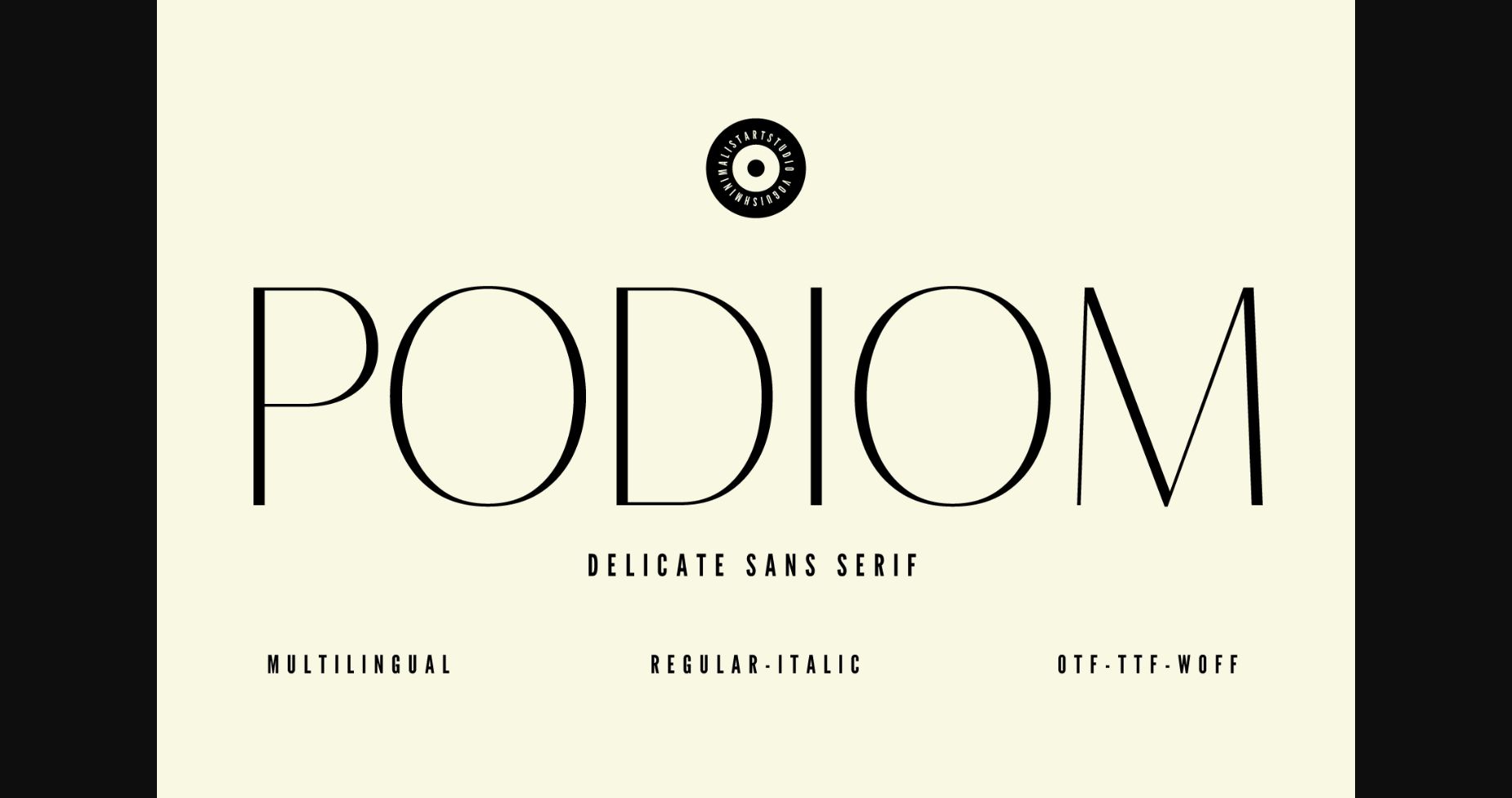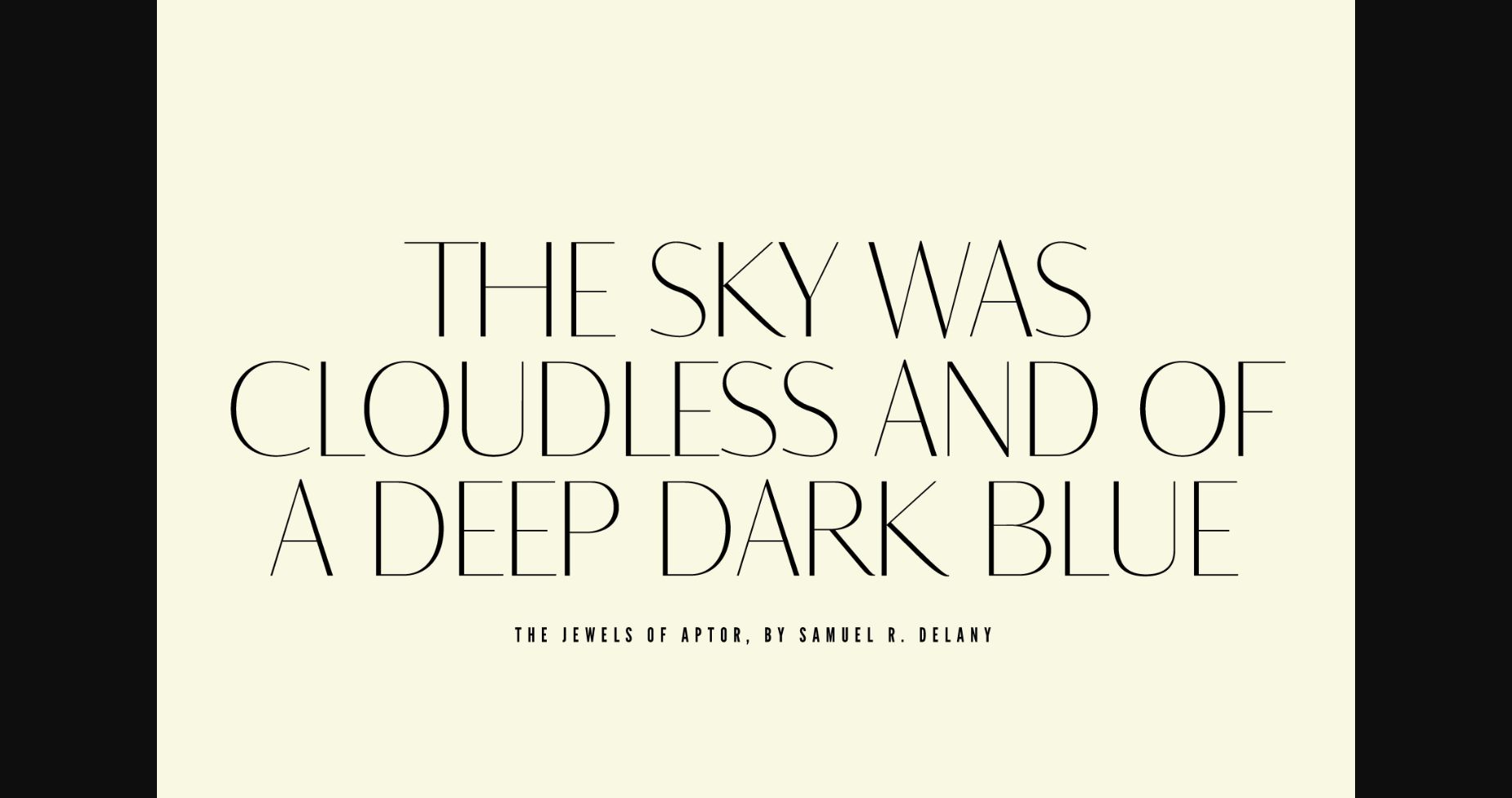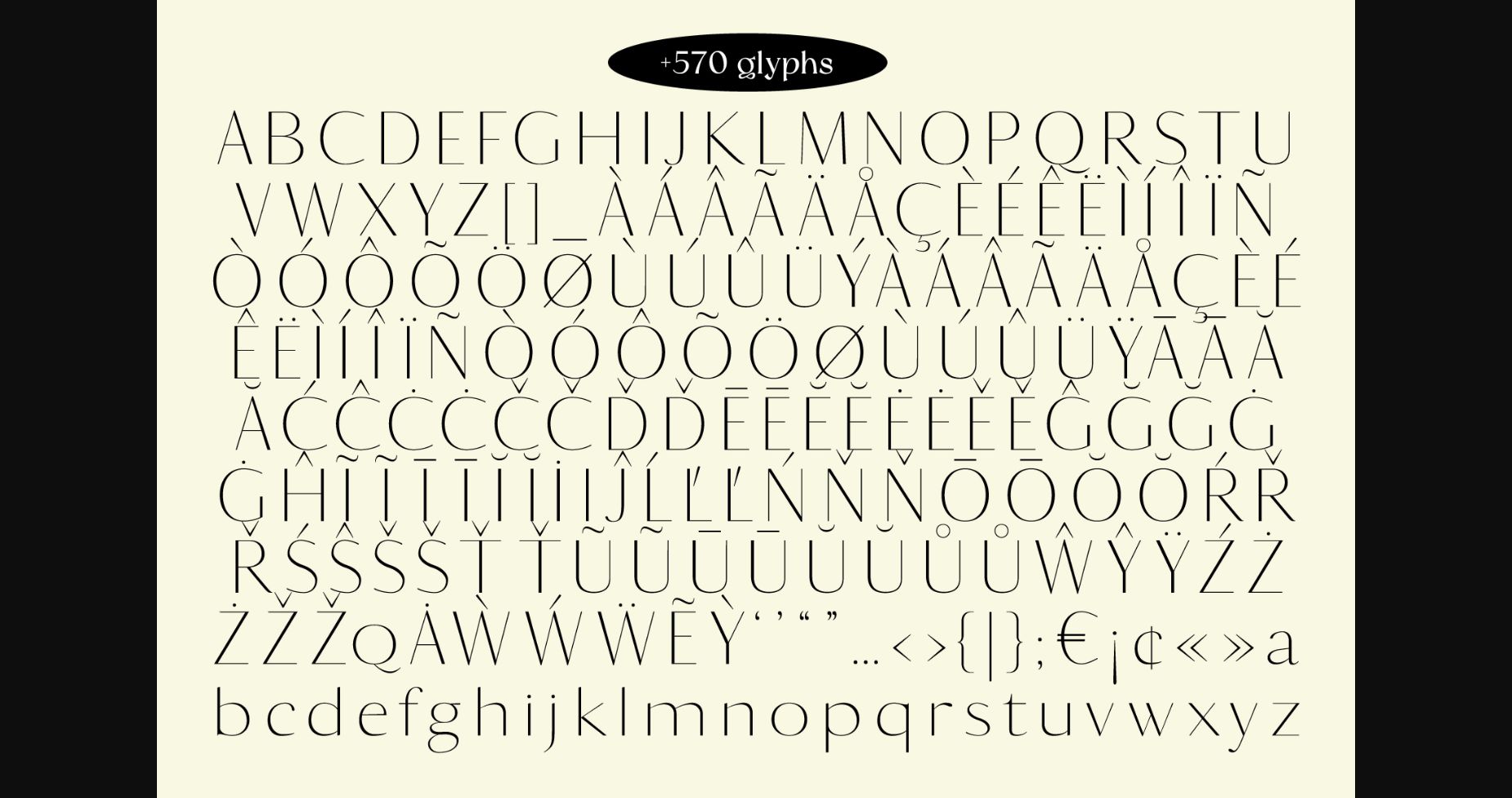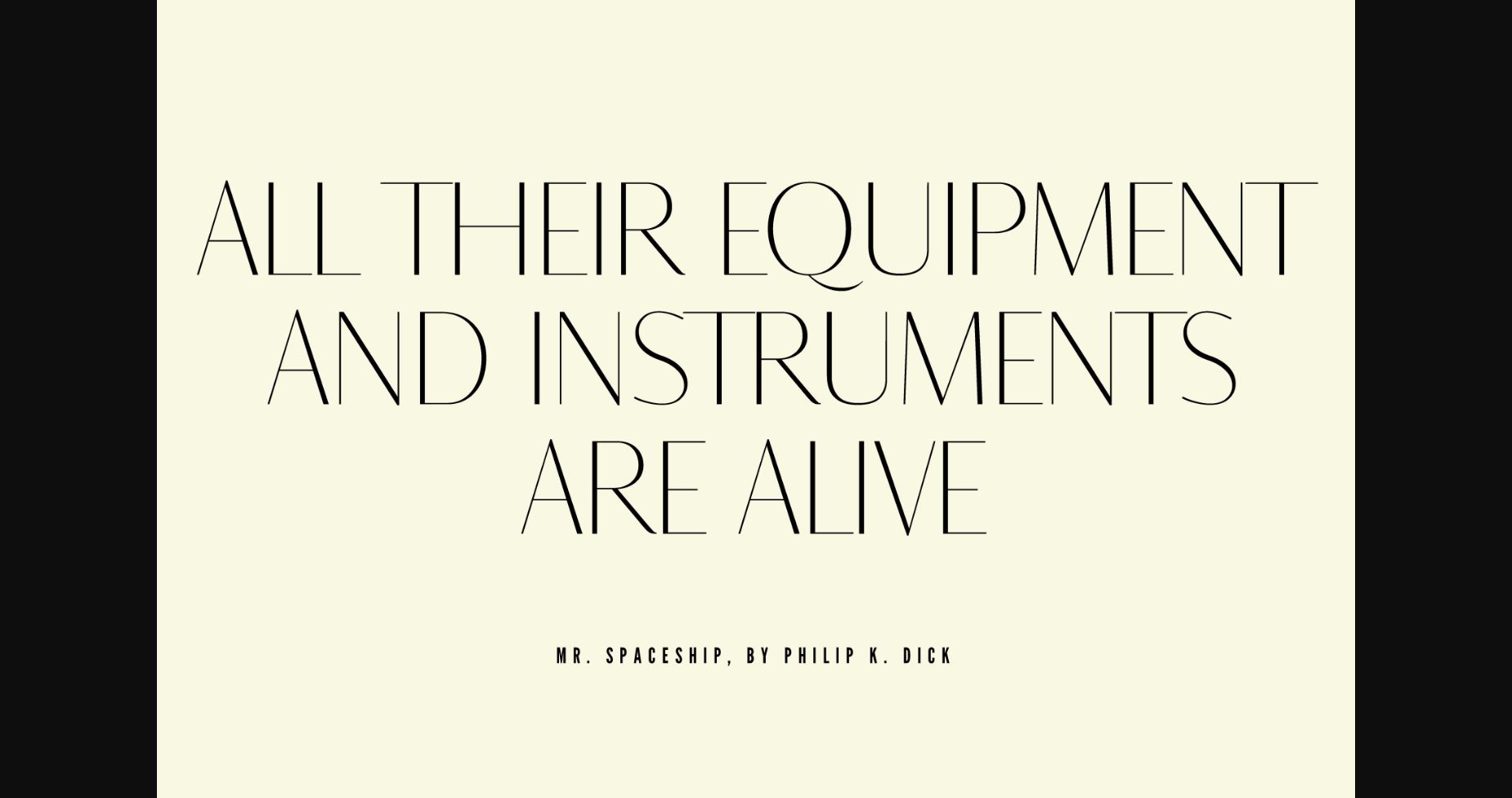
About Podiom Font
Introducing Podiom, a thin, minimalist, and modern sans serif typeface. With its delicate curves and clean lines, Podiom brings a touch of elegance to any project. Perfect for branding, editorial design, and web layouts, its refined letterforms strike the perfect balance between simplicity and sophistication.